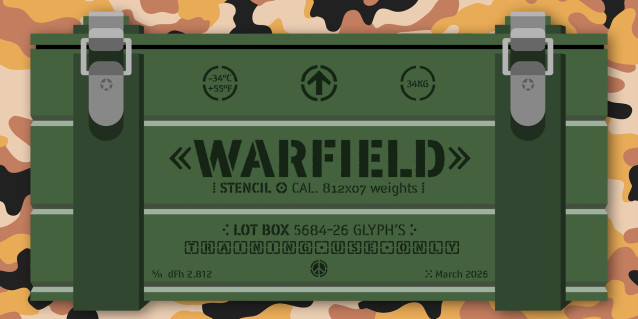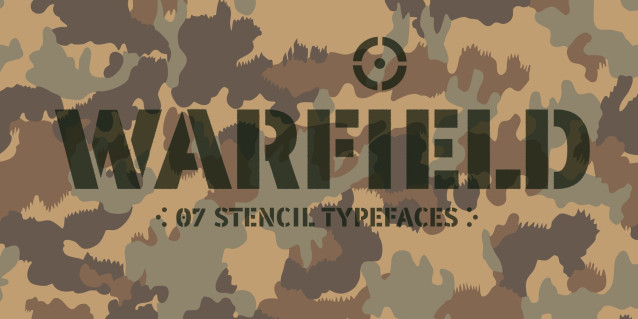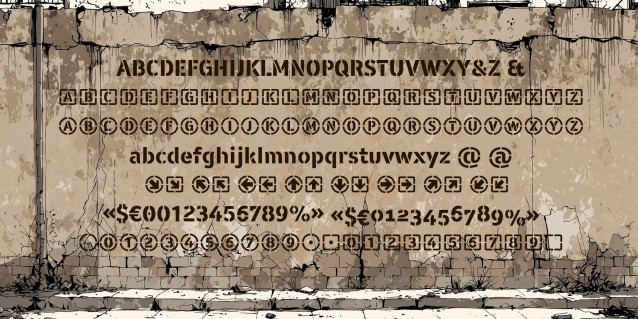
WARFIELD Stencil Font
WARFIELD is, by definition, a stencil typeface, drawing from its military and industrial heritage, but shedding any aggressiveness to embrace absolute legibility.
It is a contemporary sans-serif that is not only read but also felt, proudly displaying the breaks, bridges, and interruptions that define it, giving it a straight and solemn bearing.
From the ethereal subtlety of Light to the resounding authority of Black, Warfield offers seven weights designed to withstand any creative battle.